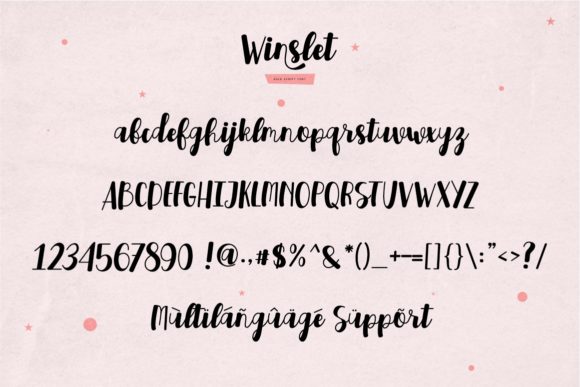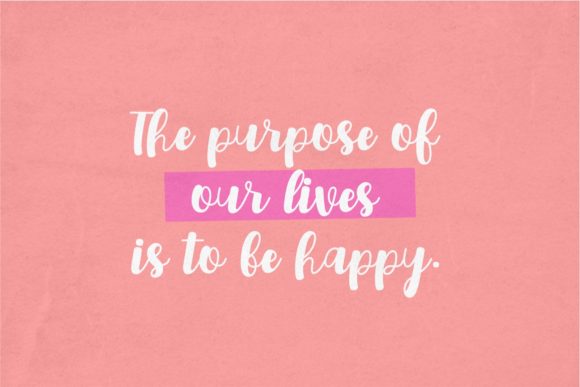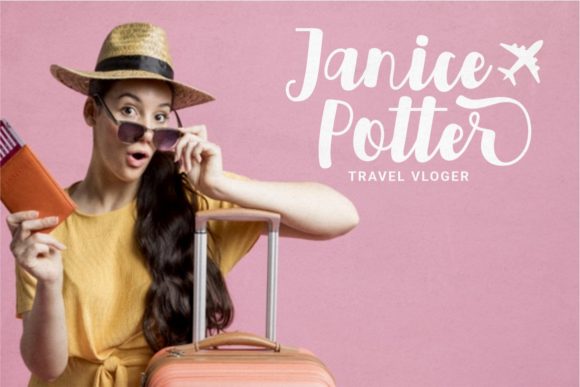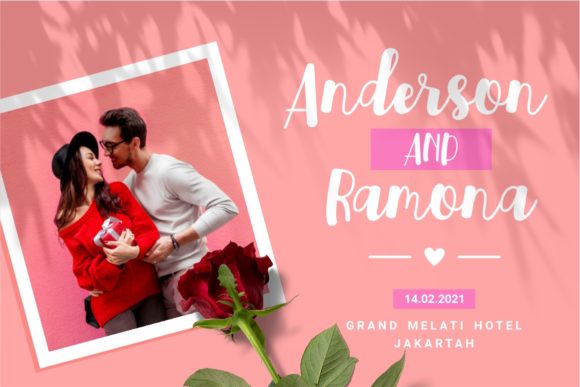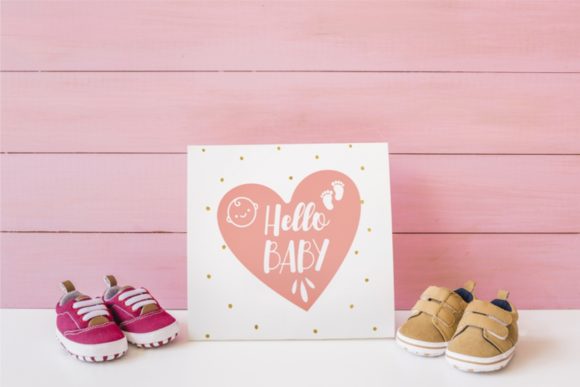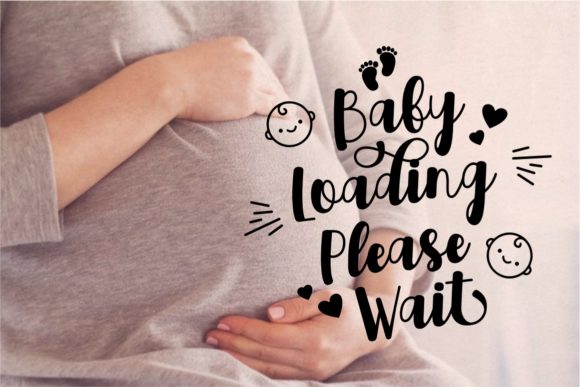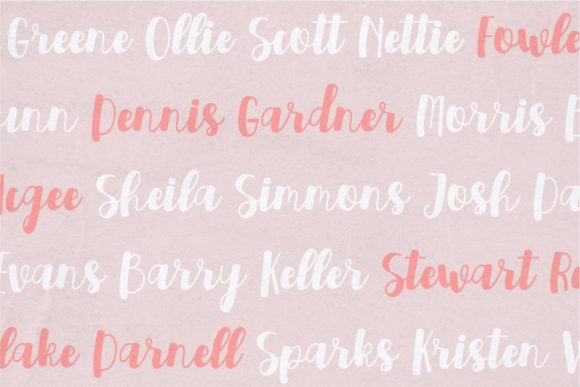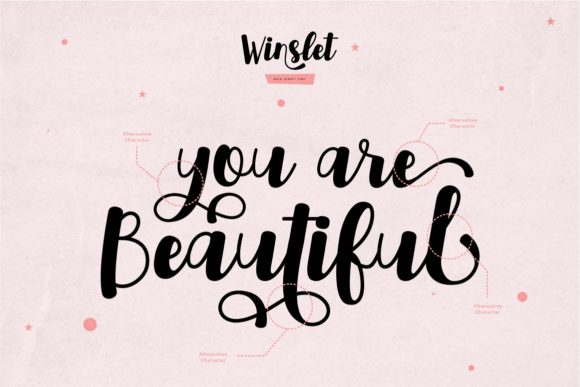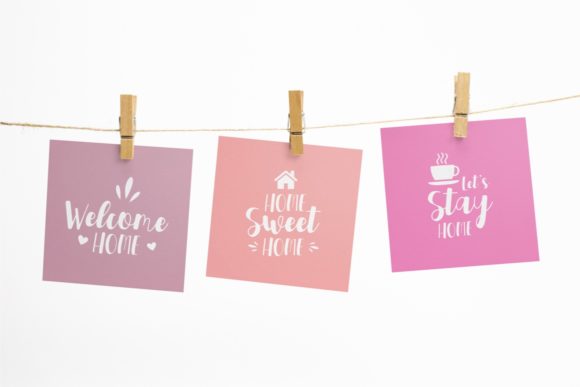
Winslet Font
About Winslet Font
Winslet is a cursive and thick lettered handwritten font with a unique feel and a stunning impact. It will add a luxury spark to any design project that you wish to create! This font is PUA encoded which means you can access all of the amazing glyphs and ligatures with ease!